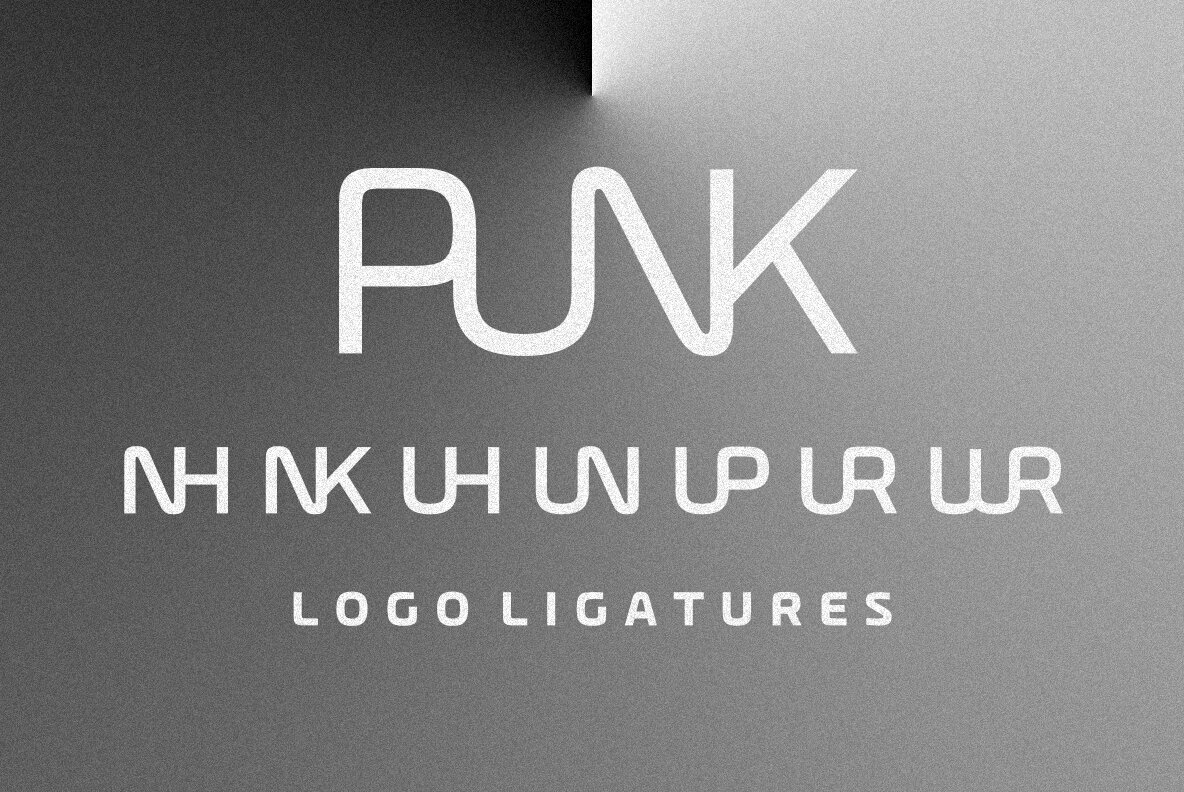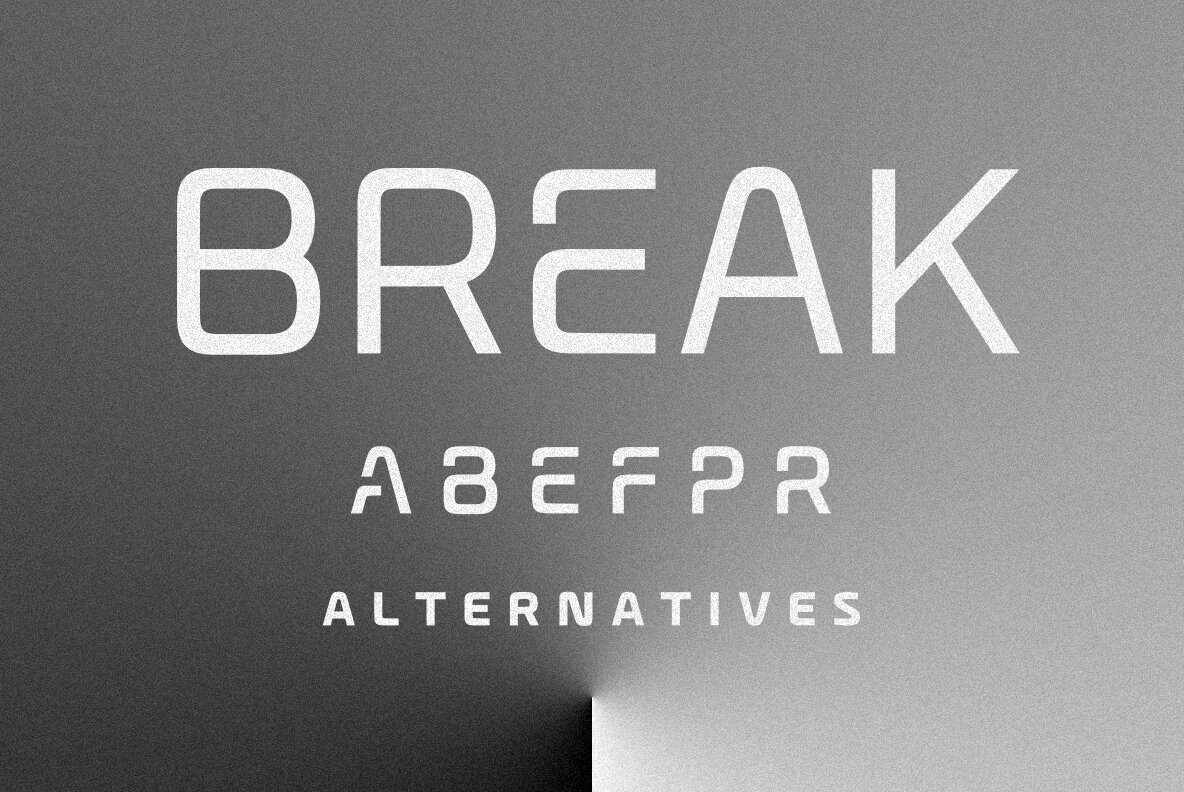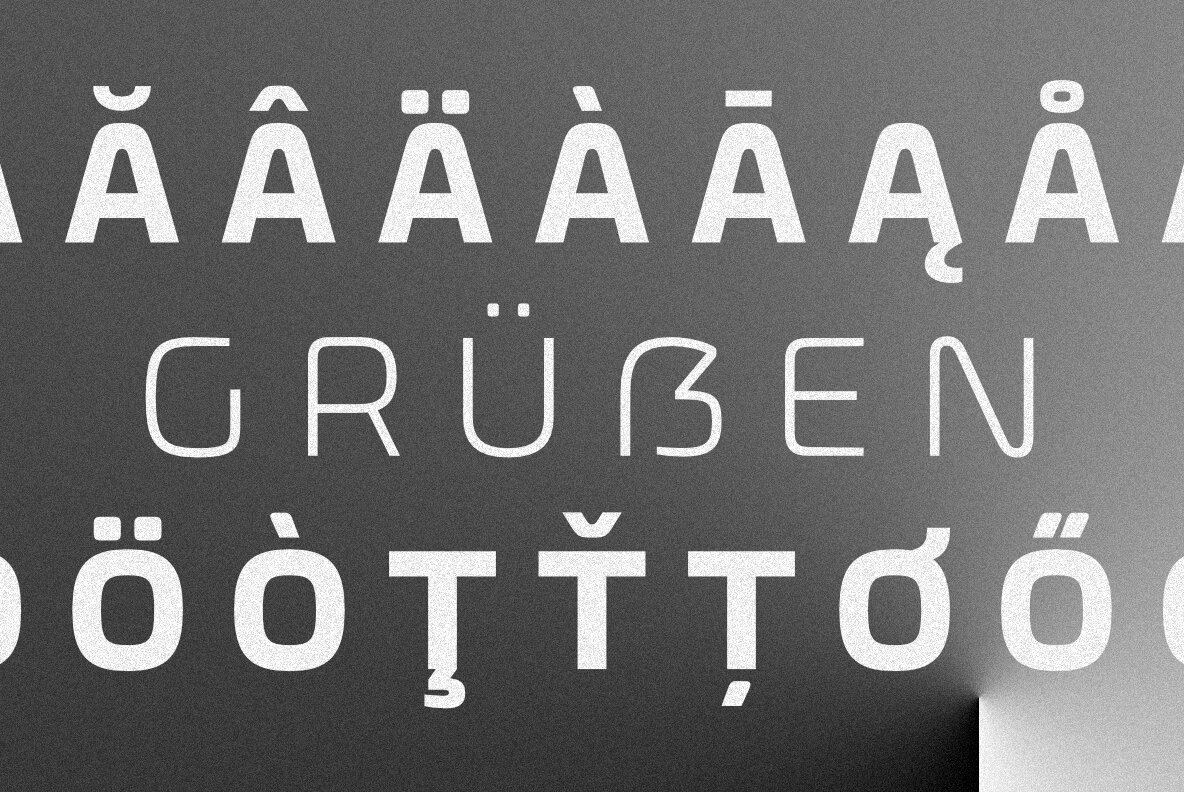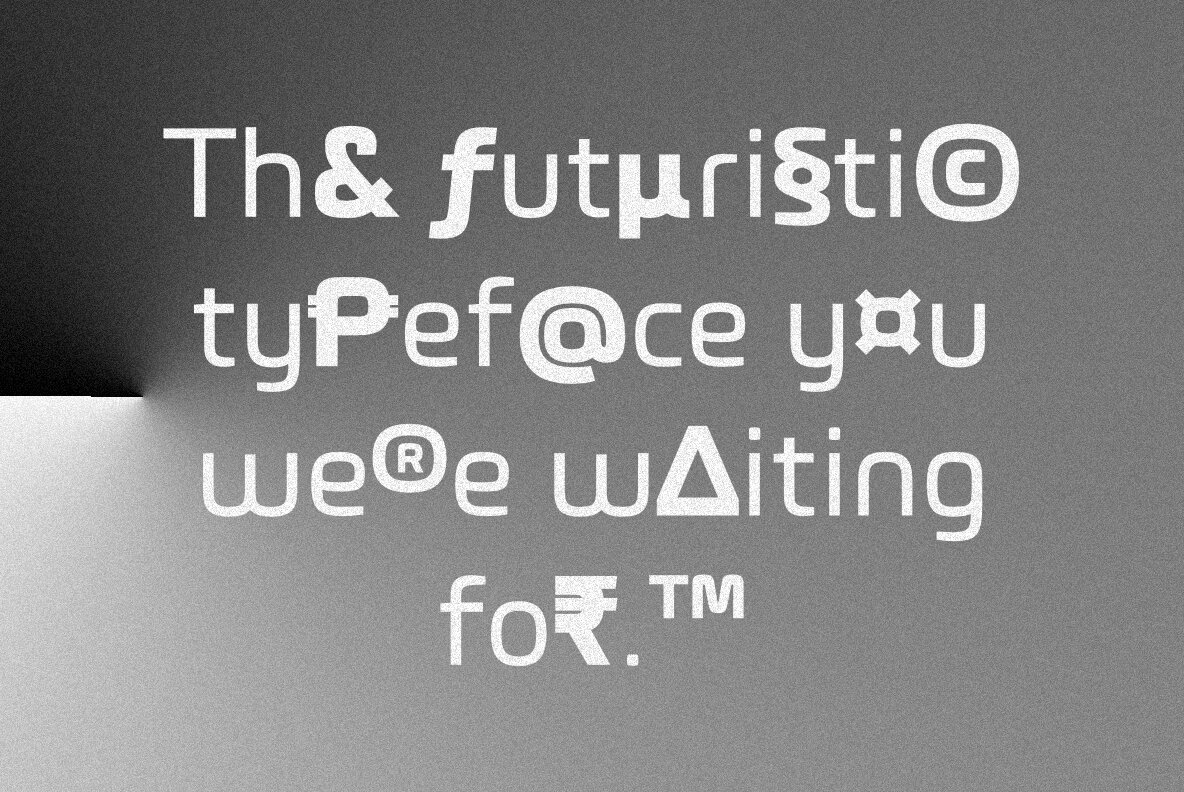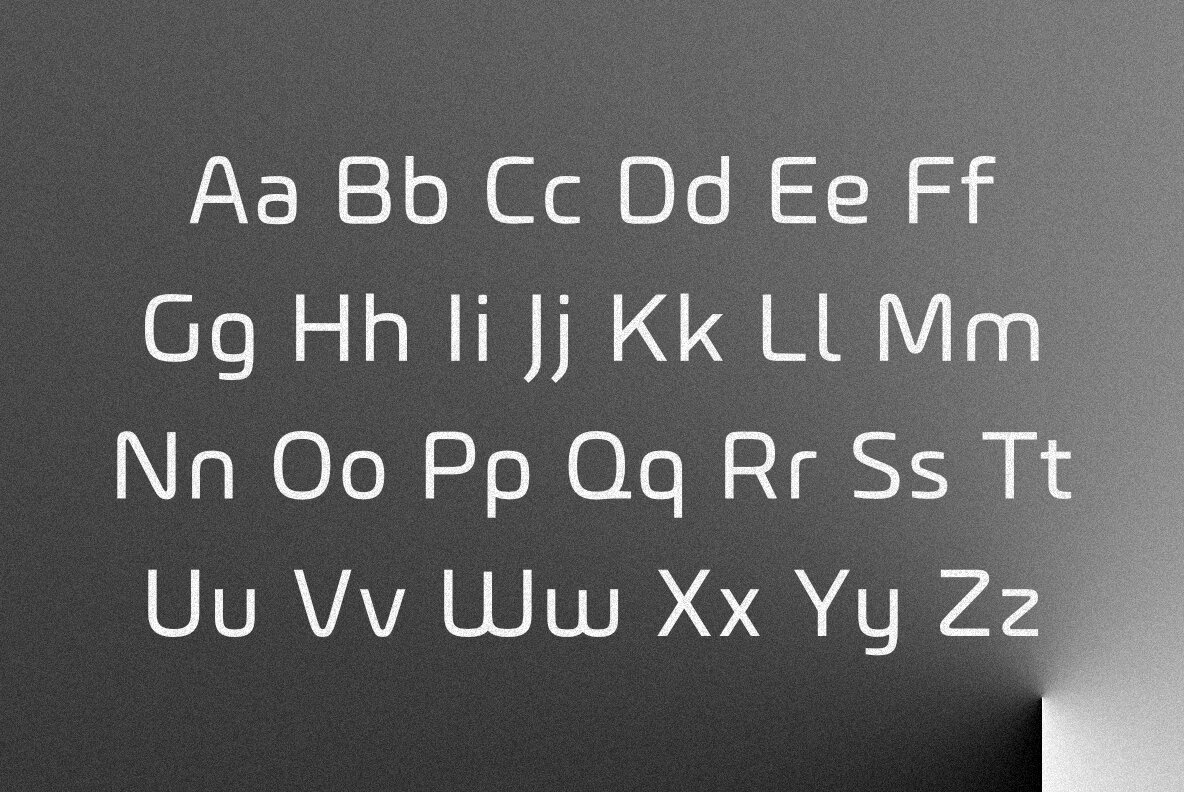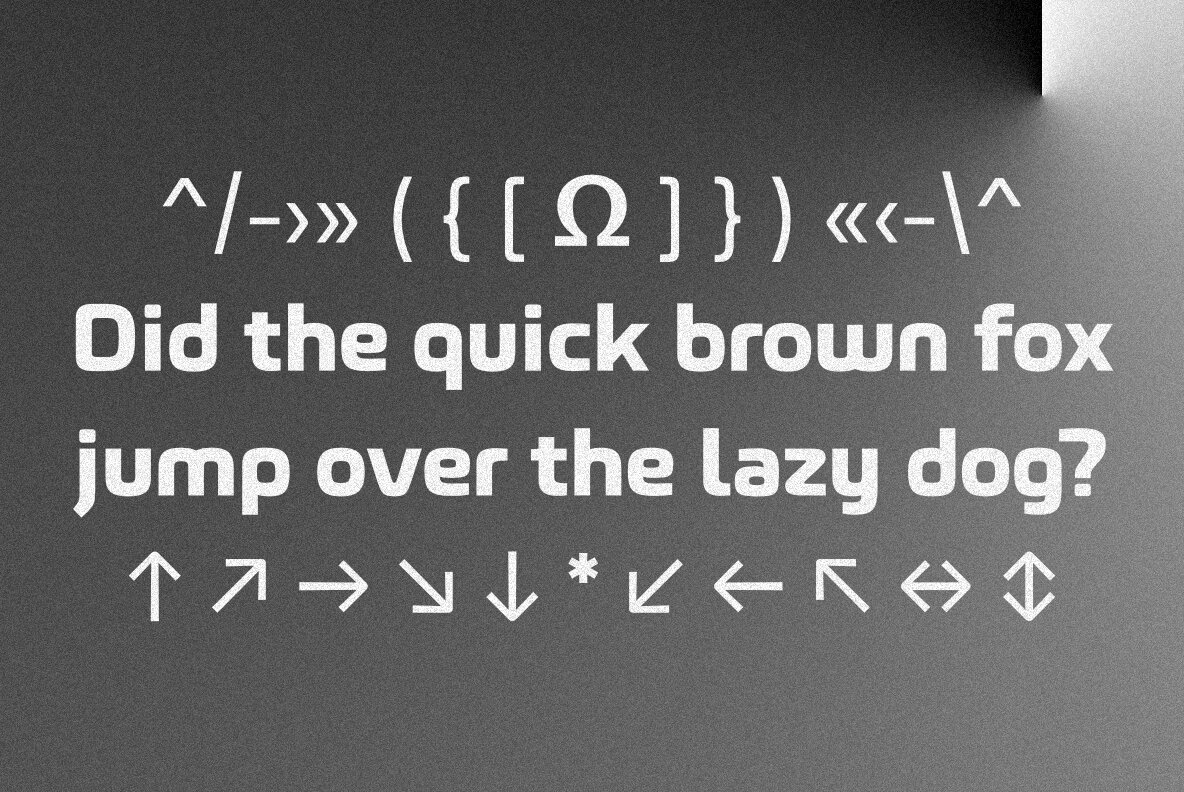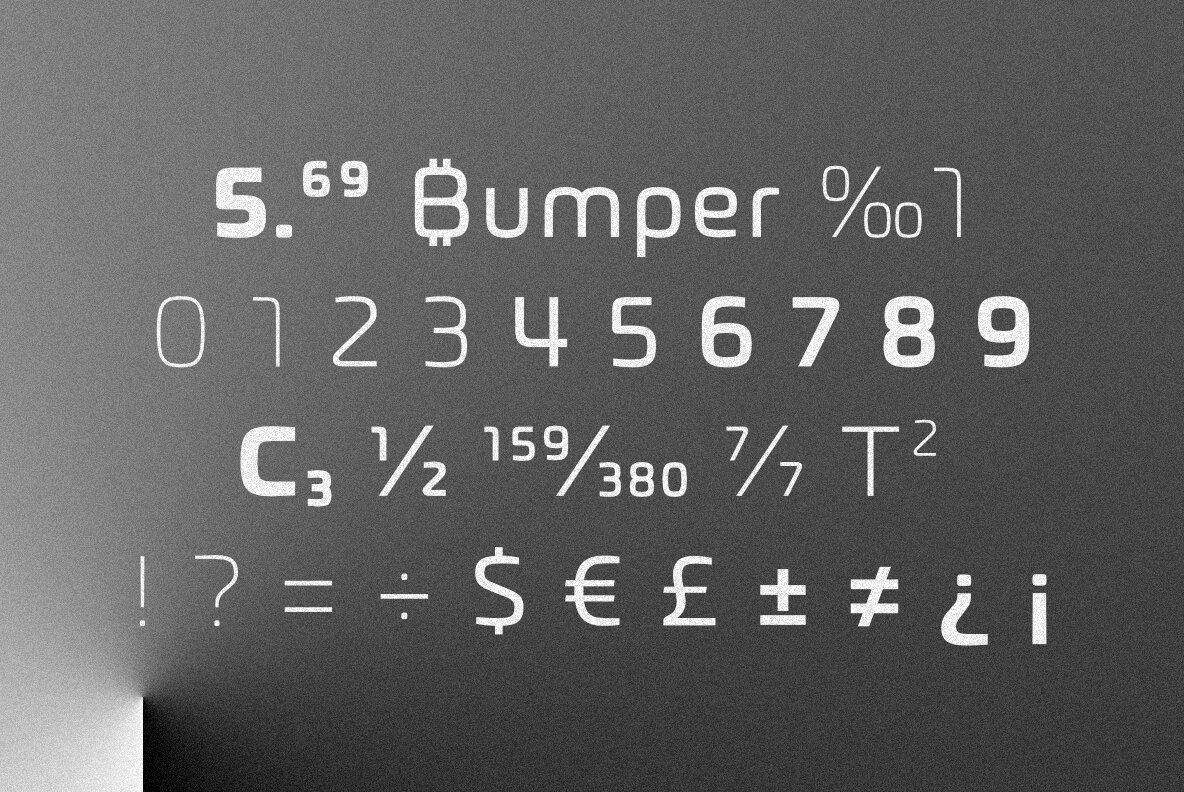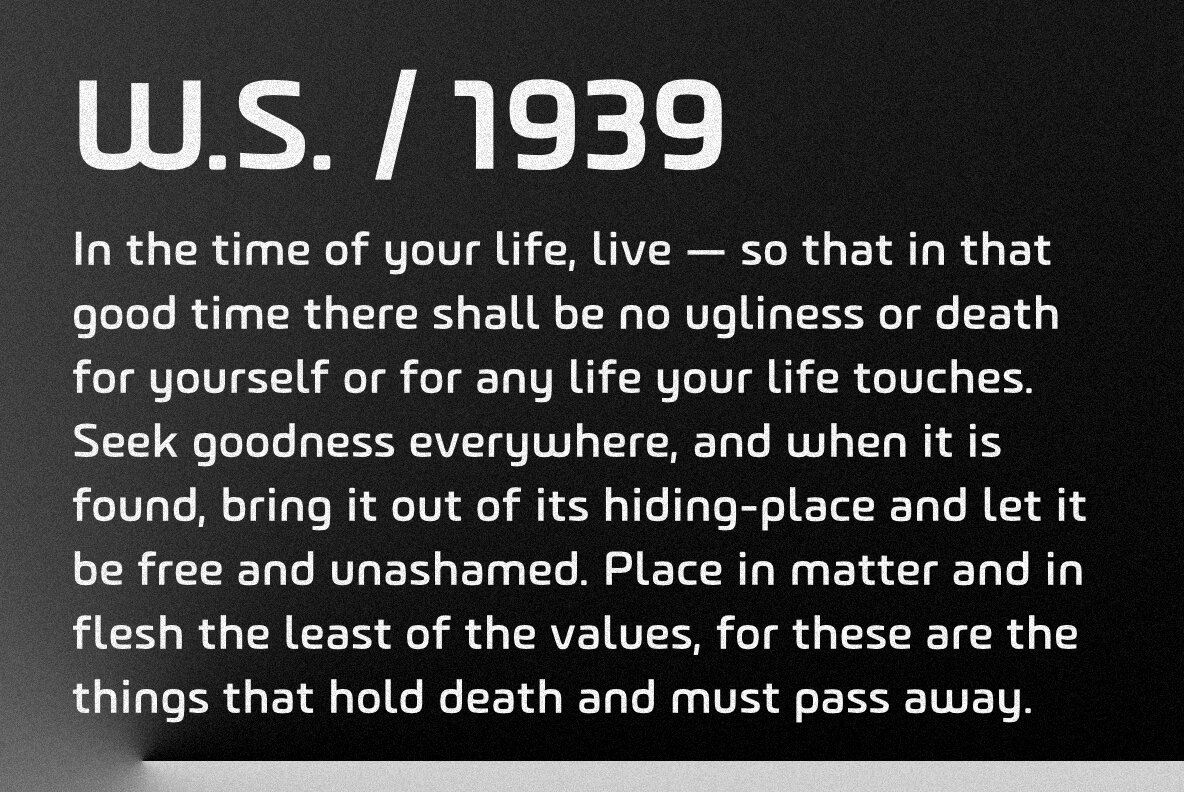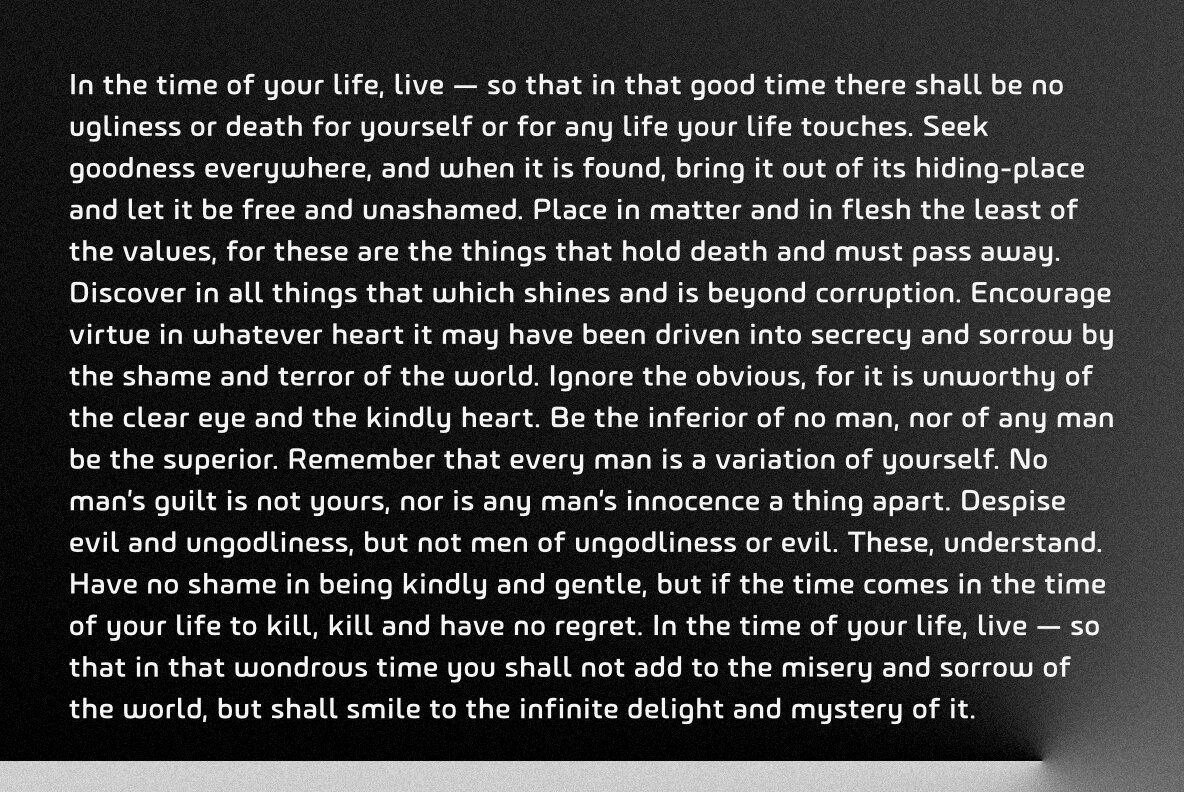
Automata Font
Automata combines futuristic appearance and easy readability. Great for titles but also for logos and text at medium/small sizes, making Automata suitable for a wide range of applications.
In addition to its smooth, clean lines and geometric aesthetic, Automata offers a variety of customizable options such as stylistic alternates, logo discretionary ligatures and multiple weights including extra-light and black. The support for many languages makes Automata a global typeface.
Add a touch of the future to your design work.